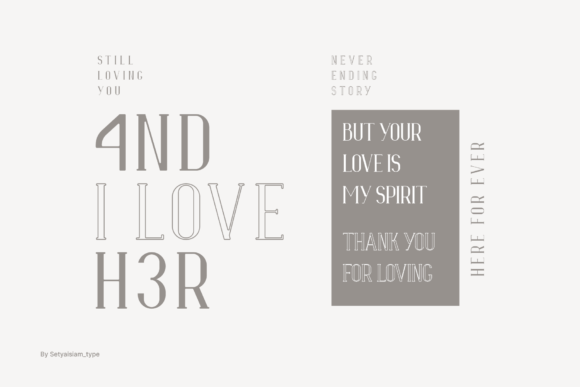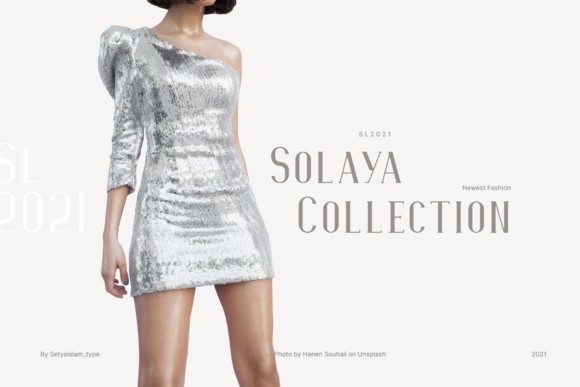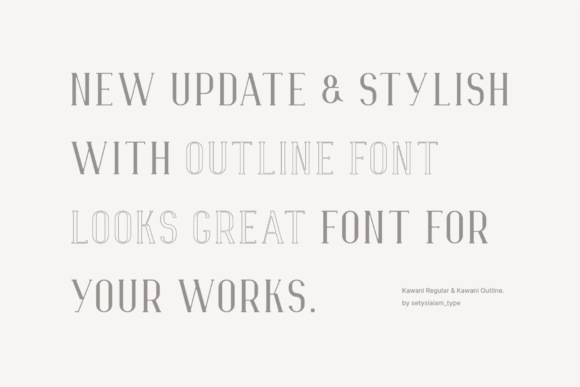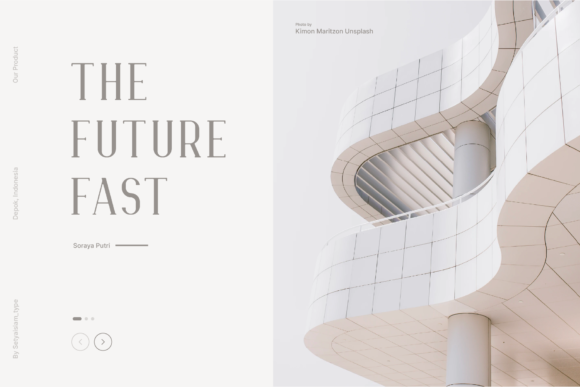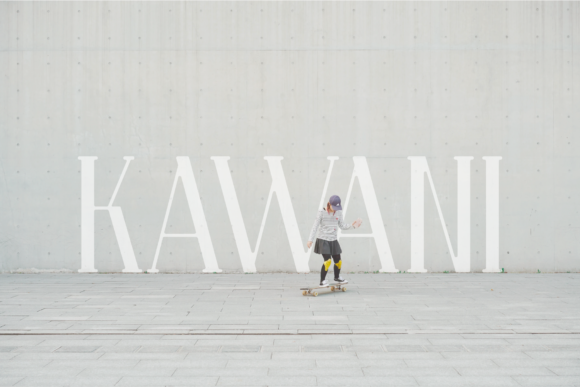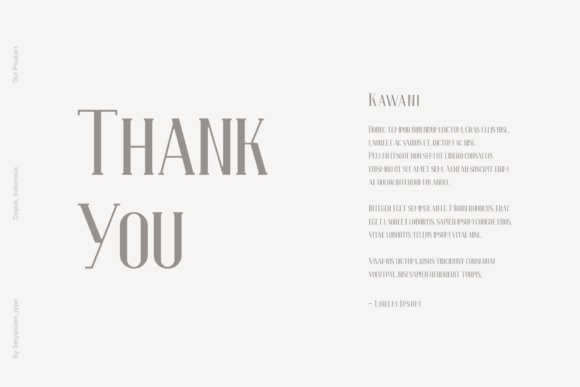
Discover the Timeless Elegance of Kawani Font
Do you remember the thrill of finding the perfect font to elevate your creative project? For many designers, it’s that moment of serendipity when everything falls into place, and the design comes alive. Today, we’re excited to introduce you to the Kawani Font, a high-quality serif font that’s sure to become your new go-to design resource.
With its tall and authentic feel, the Kawani Font is the perfect addition to any designer’s library. Whether you’re working on a logo, brochure, or website, this versatile font has the potential to elevate any creation. And the best part? It’s available for a free download, making it an accessible resource for designers of all levels.
- High-quality design resource suitable for creative projects, offering a unique and stylish aesthetic.
- Features a large character set, making it suitable for a variety of languages and creative applications.
- Designed to be versatile, the Kawani Font can be used for a wide range of creative projects, from logos to typography-based art.
The Kawani Font is a unique and versatile design resource that can elevate a creative project to the next level. I was excited to try it out and see how it performs.
- ✨ High-quality design that is perfect for a wide range of creative projects.
- ✨ The font is highly customizable, making it easy to adjust to suit your design needs.
- ⚠️ The font may not be suitable for small text sizes, as it can become difficult to read.
Overall, I was impressed with the Kawani Font’s potential and would definitely consider using it in future design projects. While it may have some limitations, its high-quality design and versatility make it a valuable addition to any design resource library. As a bonus, it’s available for free download, making it an excellent choice for designers on a budget.
The Kawani Font is a high-quality, creative design resource perfect for a variety of projects. Its unique style and versatility make it an ideal choice for designers looking to add a touch of elegance to their work.
To get the most out of the Kawani Font, try pairing it with a transparent background to create a striking visual effect. Experiment with different font sizes and colors to add depth and interest to your design.
The Kawani Font is ideal for a range of creative projects, including graphic design, digital art, and even web design. Its versatility makes it a great choice for designers looking to create unique and eye-catching designs.